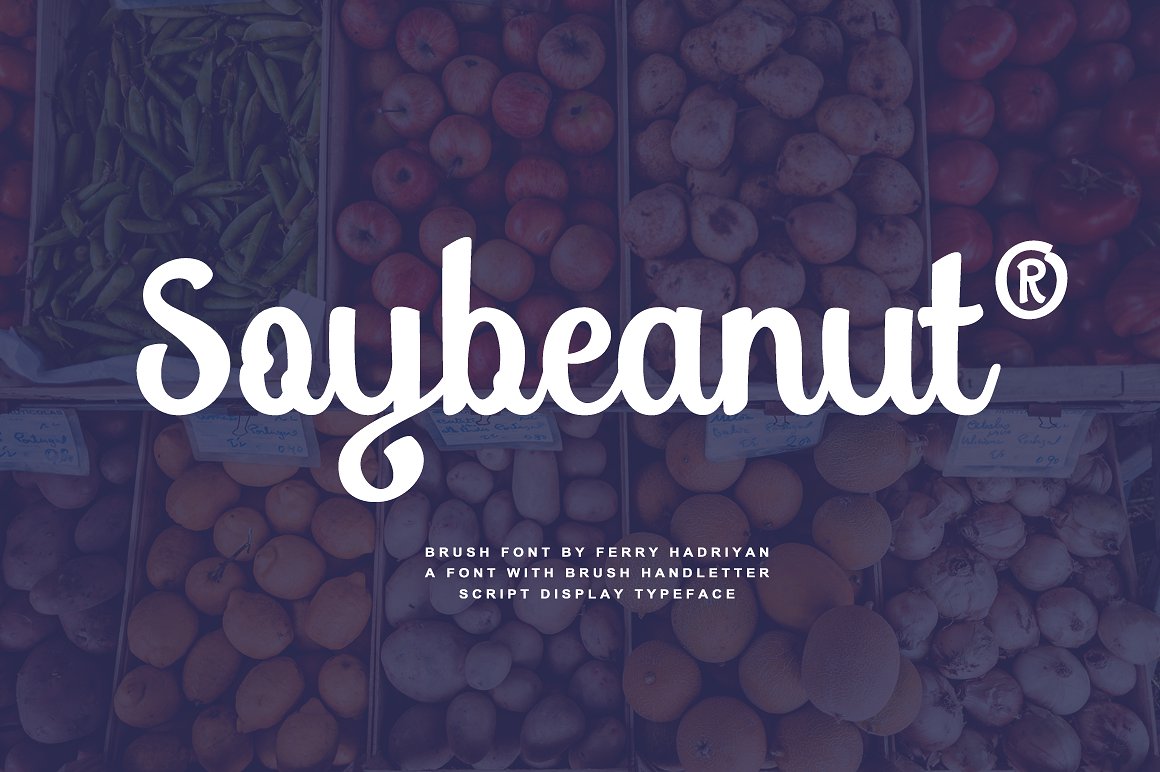
Soybeanut Script
Soybeanut Script Font
Soybeanut is brush script font with authenthic style. Suitable for design, element design, wedding, event, t-shirt, logo, badges, sticker, and awesome work, etc…